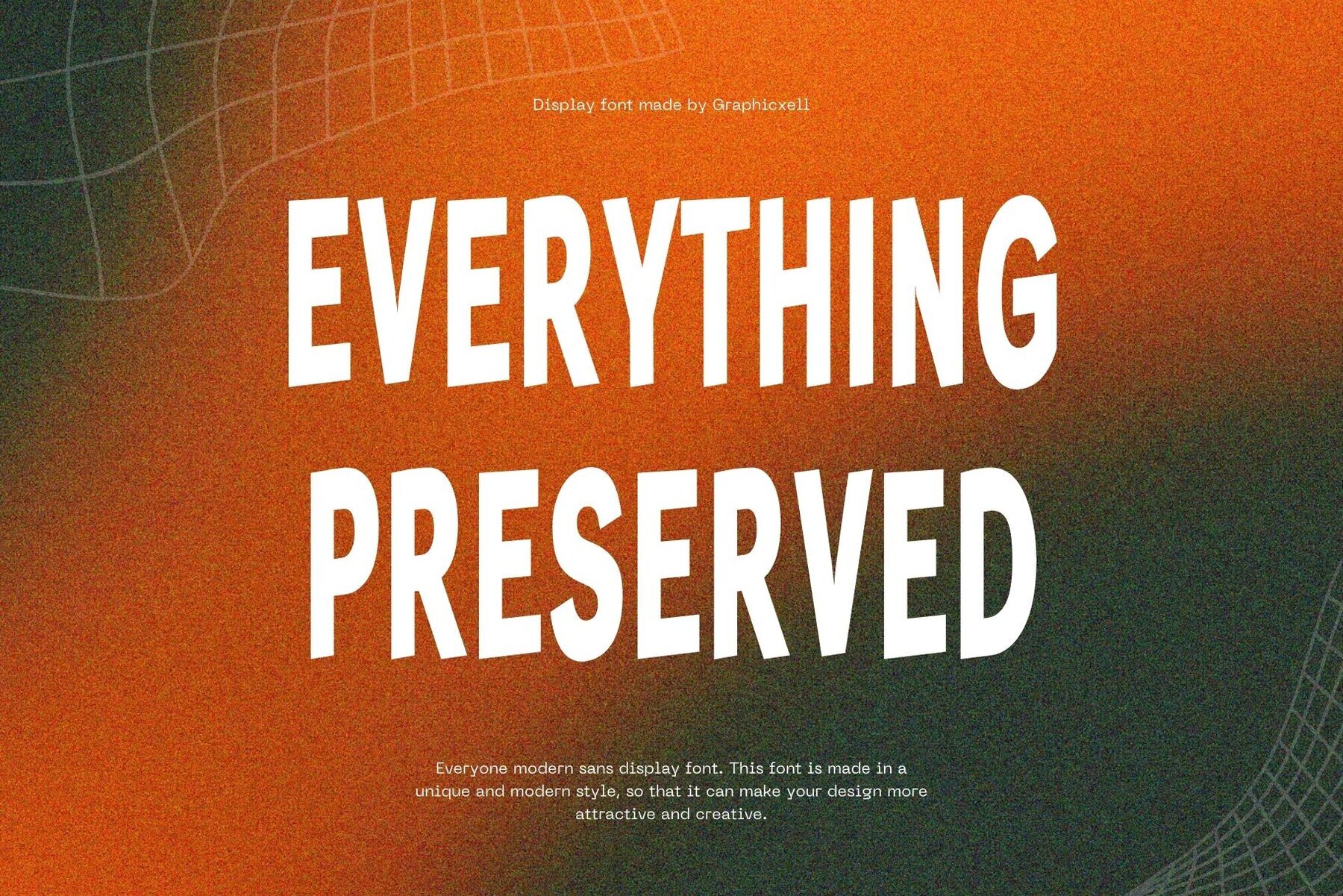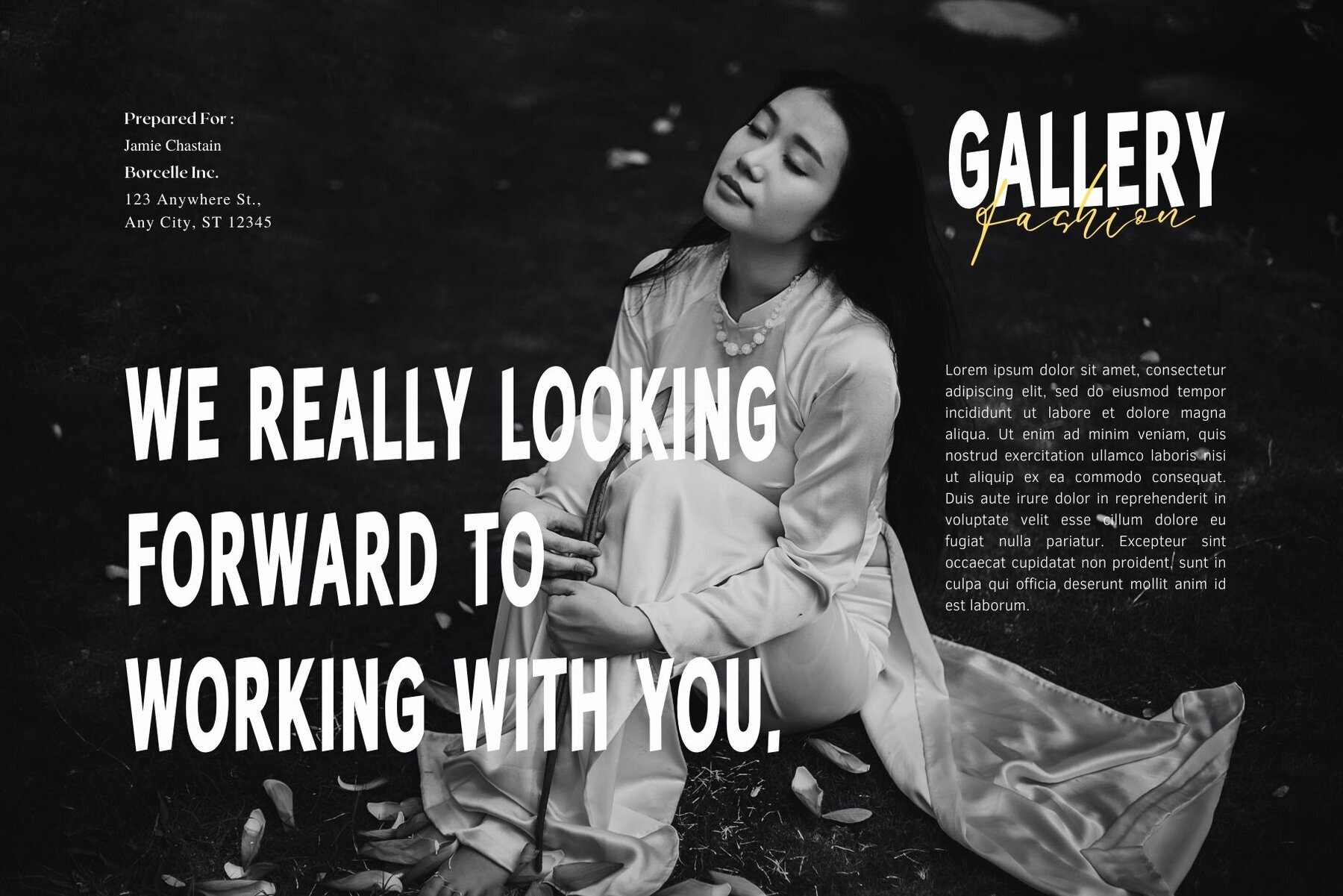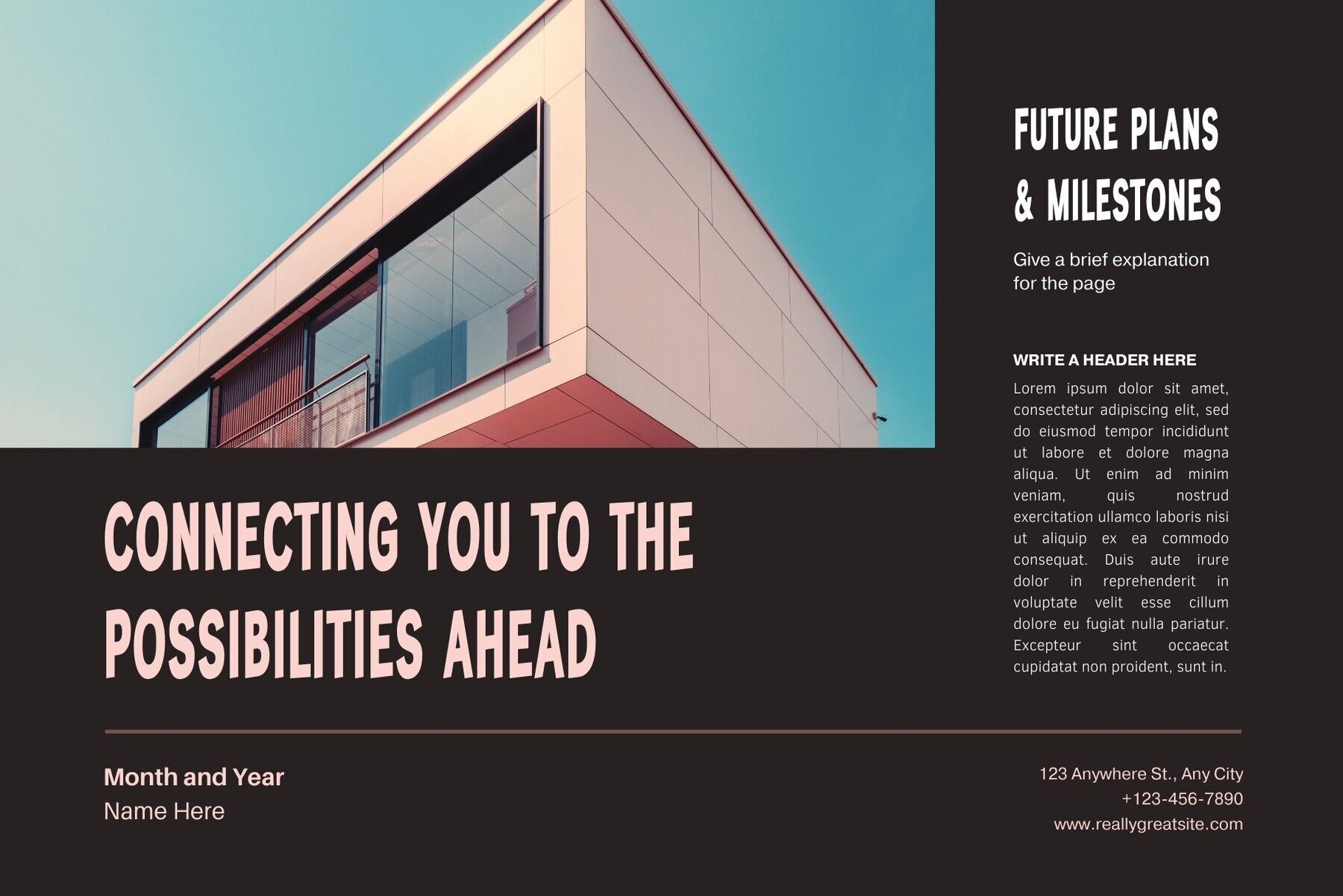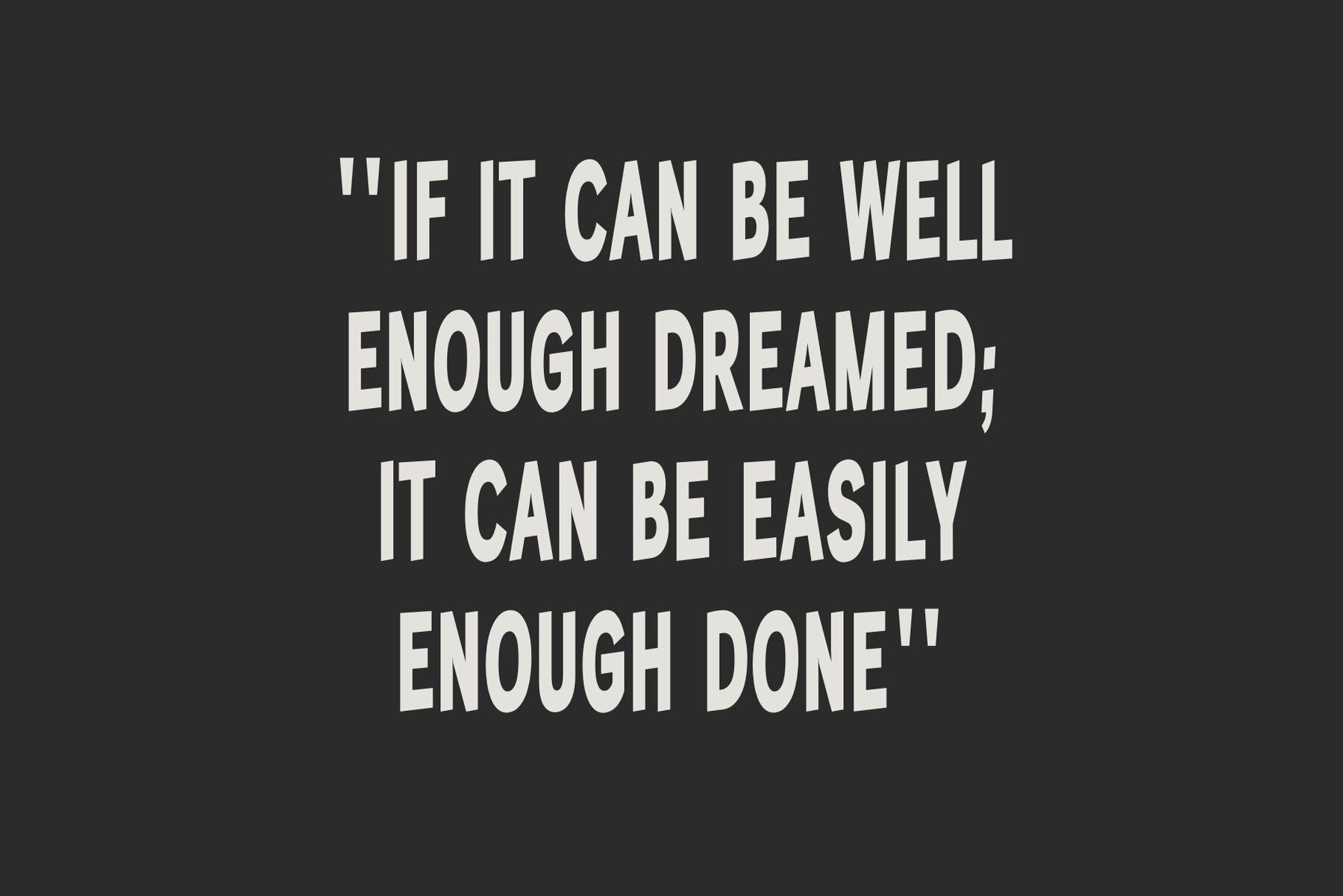
Everything Preserved Font
Everything Preserved
Inspired by renowned minimalist logos, Everything Preserved by Graphicxell embodies simplicity with a touch of elegance. Ideal for designers seeking to create clear and refined materials, this offering excels in a variety of applications and can be seamlessly integrated into many creative projects.Everything Preserved: Minimalism Meets Versatility